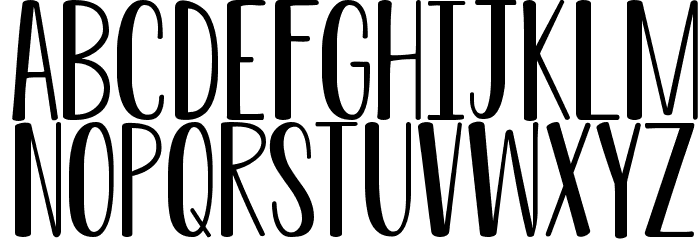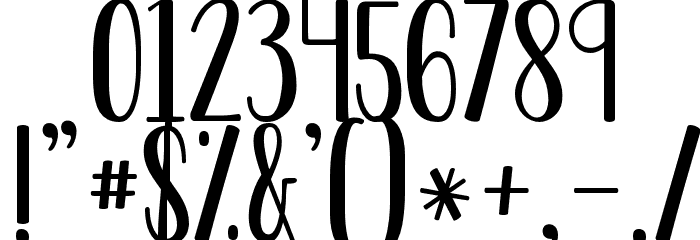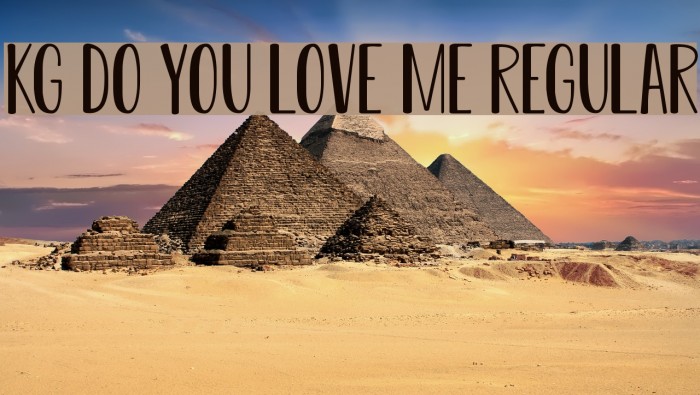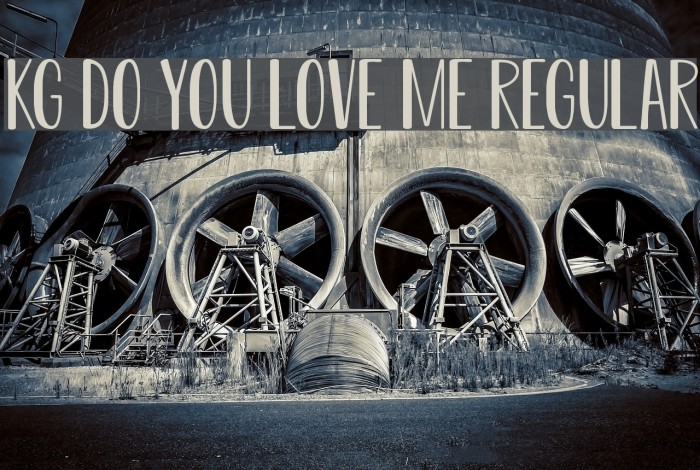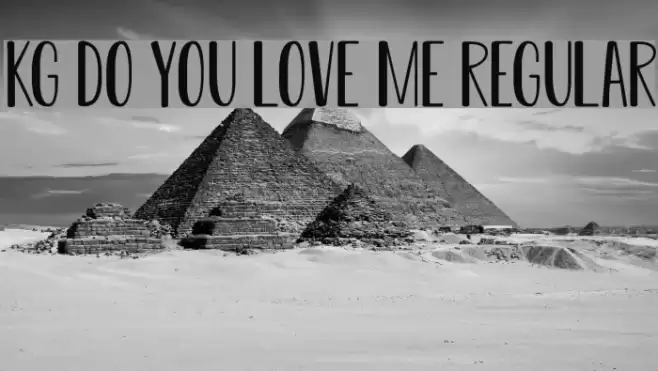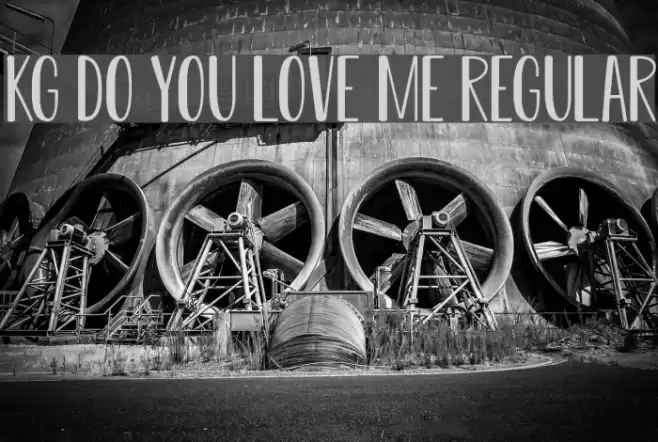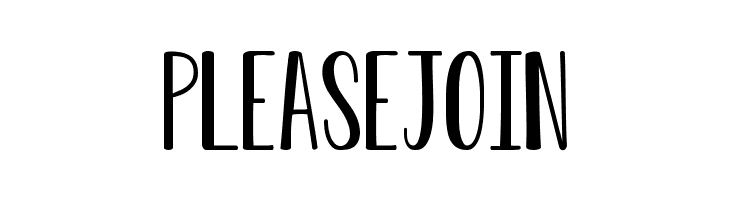
KG Do You Love Me Regular Font
This font features a playful and whimsical design with tall, narrow characters that have a hand-drawn feel. The letters are slightly irregular, adding a charming and casual vibe. The strokes are consistent in width, giving it a clean and modern appearance. The font includes both uppercase and lowercase letters, numbers, and a variety of special characters. Its unique style makes it stand out, while still being highly readable. The overall look is both fun and approachable, making it suitable for a variety of creative projects.
A playful, hand-drawn font with tall, narrow characters and a whimsical style.
- Proposed Projects: Ideal for children's books, greeting cards, playful branding, and creative posters.
- Overall Style: Playful
- Use Case: Headlines, Logos, Creative projects